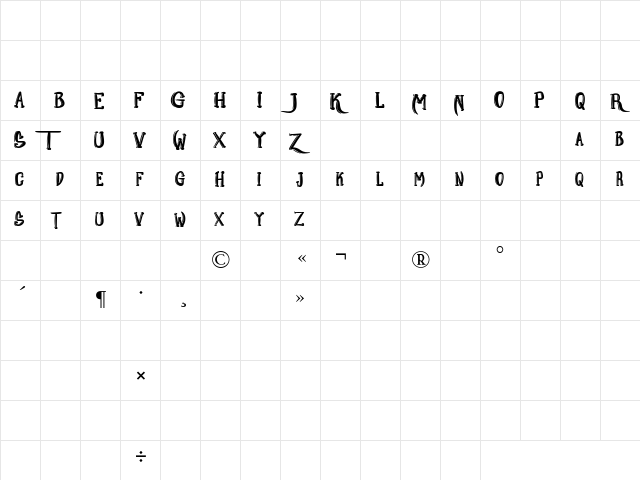
Kuramo DEMO
| Designer | Sakadang Keos 2019 |
Design Context for Kuramo Typeface
Kuramo is a composed and adaptable typeface that performs quietly and consistently across a wide range of design contexts.